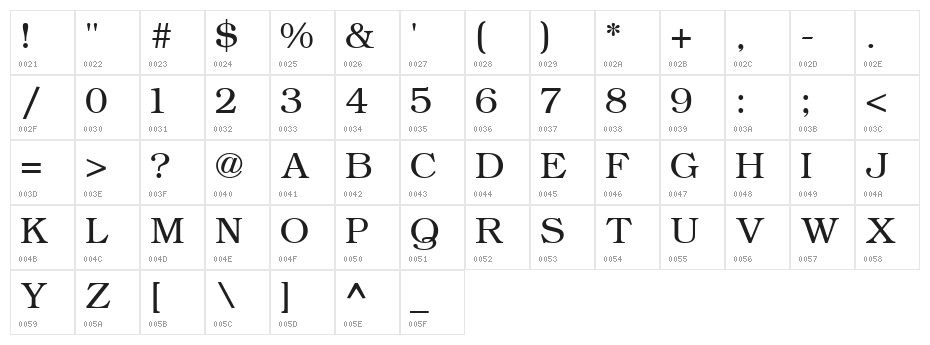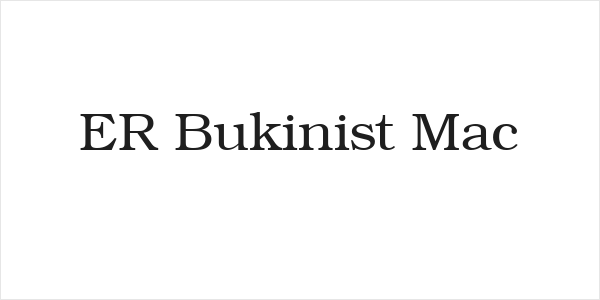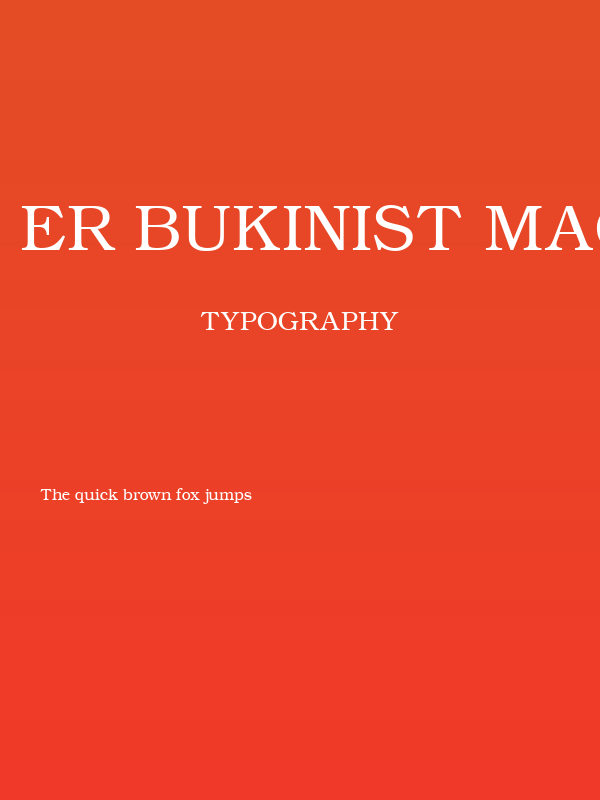
ER Bukinist Mac Font
ER Bukinist Mac Description
This font exhibits a classic serif style with a strong presence and elegant curves. The uppercase letters are bold and commanding, while the lowercase letters maintain a refined and balanced appearance. The numerals are clear and distinct, making them easily readable. Special characters are well-integrated, maintaining the overall aesthetic of the typeface. The serifs are pronounced, adding a touch of sophistication and tradition. This font is versatile, suitable for both formal and creative applications, and it carries a timeless appeal.
| Proposed Projects | Ideal for book covers, editorial design, branding, and formal invitations. |